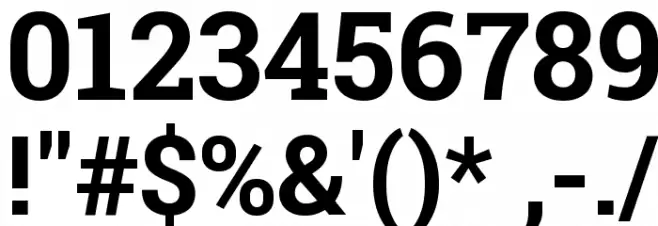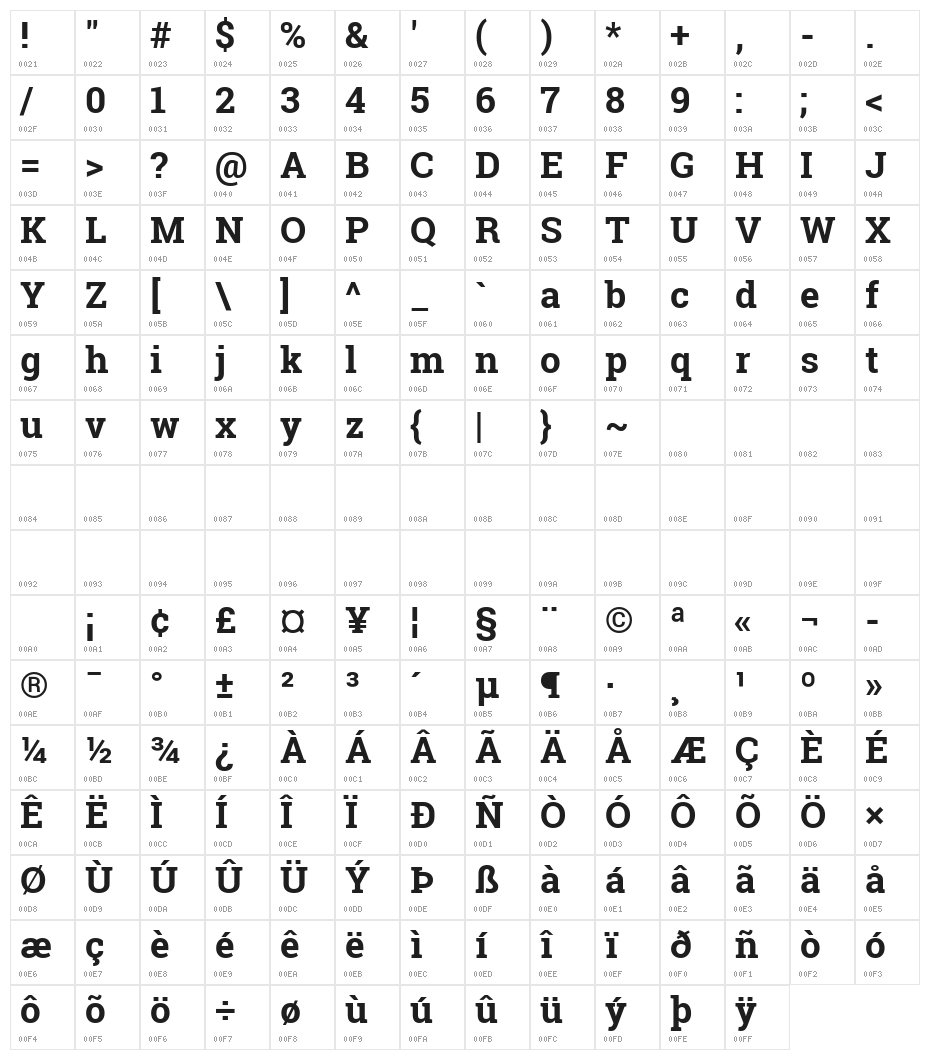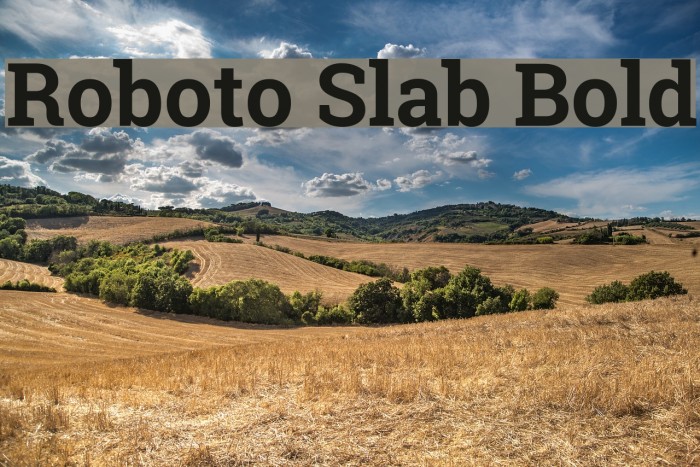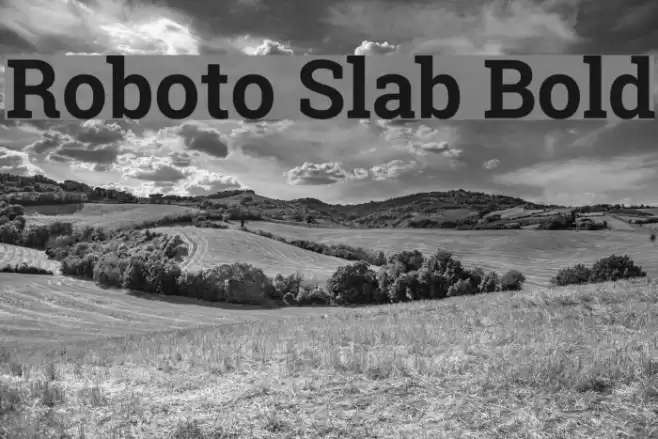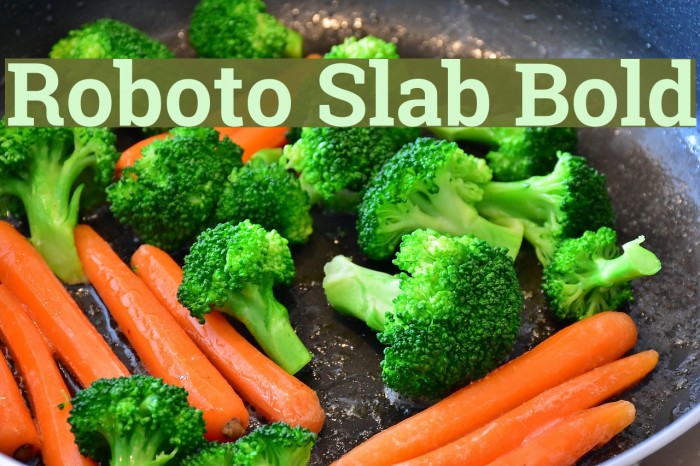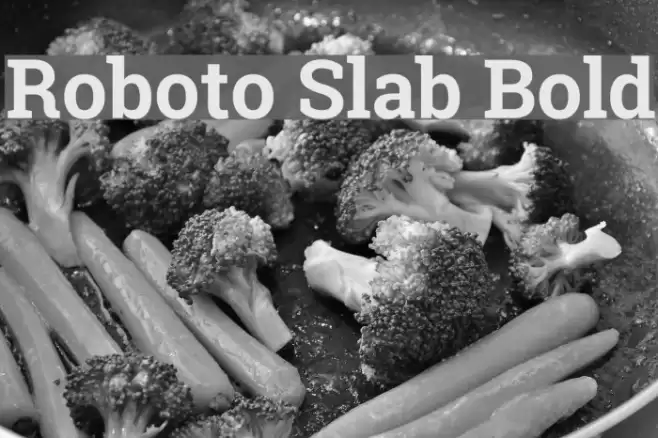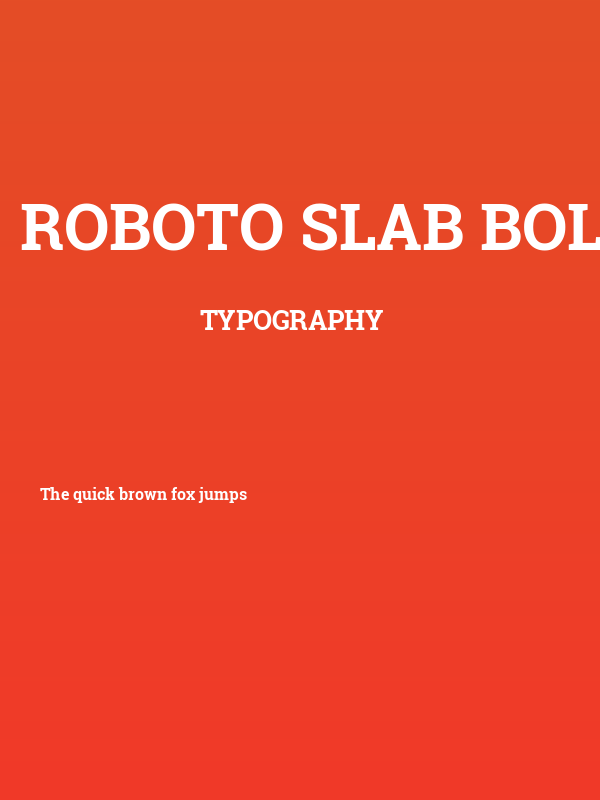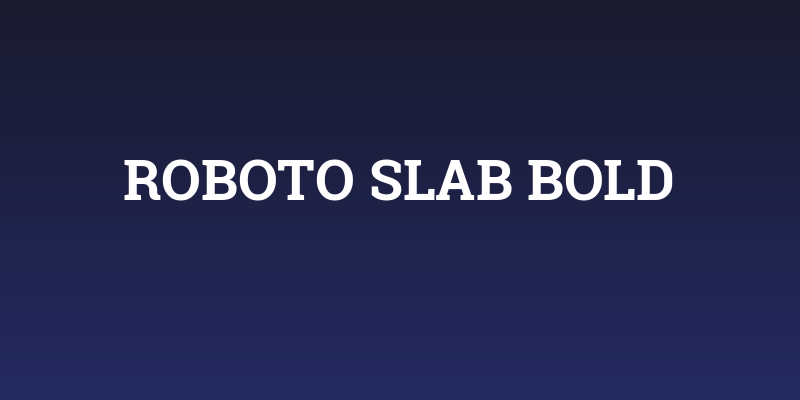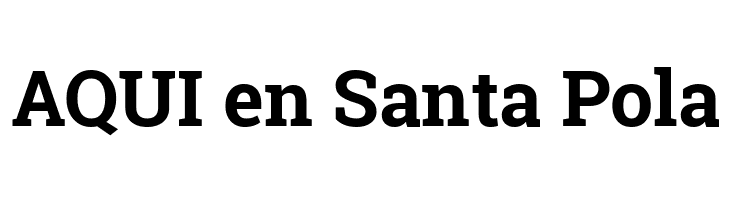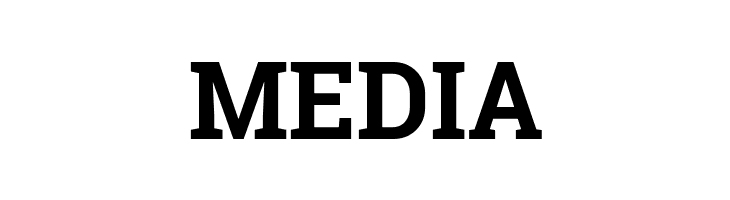
Roboto Slab Bold Font
Roboto Slab Bold Description
This font features a robust and modern slab serif design, characterized by its bold and confident appearance. The letters are well-defined with thick, consistent strokes, providing a strong visual impact. The serifs are prominent yet not overly decorative, maintaining a balance between traditional serif elements and a contemporary aesthetic. The font's structure is clean and geometric, offering excellent readability across both uppercase and lowercase letters. The numerals are clear and distinct, making them suitable for various applications. Special characters are well-integrated, ensuring versatility in design projects.